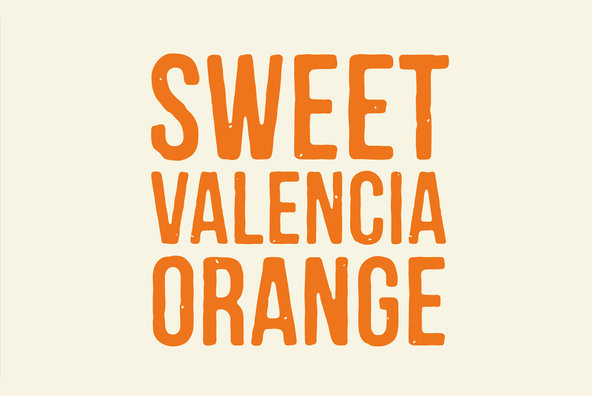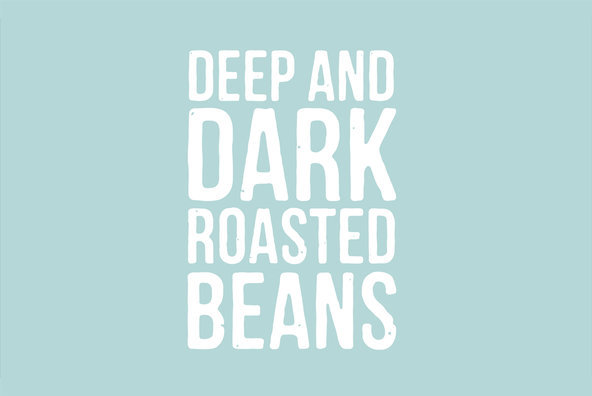
Mocha Mattari
Mocha Mattari is distressed font designed based on Bebas Neue released as a free font in 2010. The Original Bebas Neue has an inordinate level of popularity and it is often used as a web font in recent years. This Mocha Mattari was made by damaging the original and tweaked by hand work. Basically, Mocha Mattari does not have lowercases but alternative Uppercases. Exceptionally "g, m, oz, fl, lb" for "gram, milli, ounce, fluid, pound" can be available by opentype dlig or salt features.